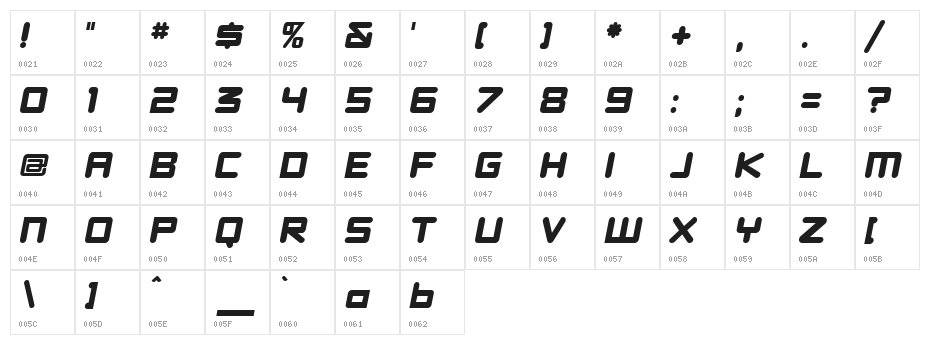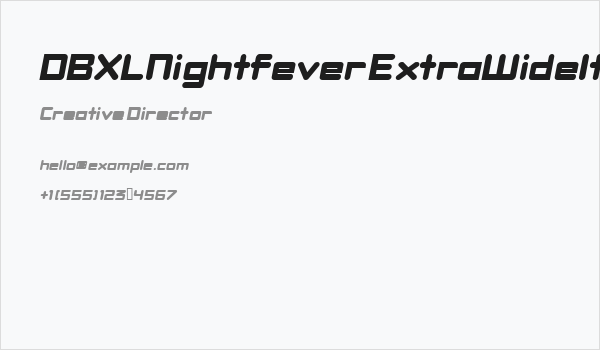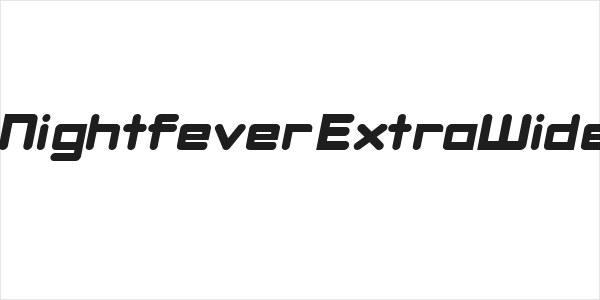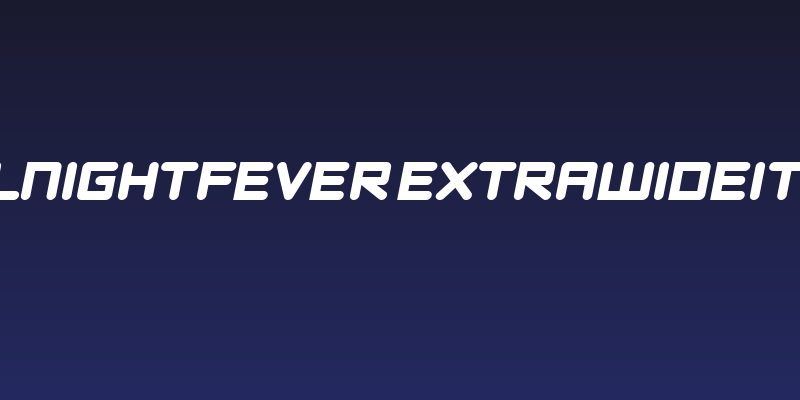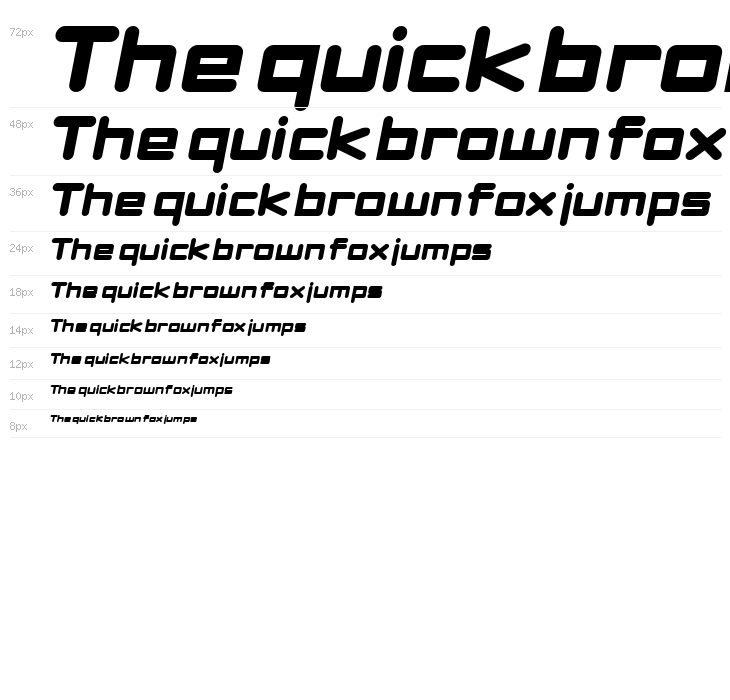
DBXLNightfever ExtraWideItalic Font
DBXLNightfever ExtraWideItalic Description
This font features a bold and dynamic style with a distinctly modern flair. The characters are extra wide and italicized, giving them a sense of movement and energy. The rounded edges and smooth curves provide a futuristic and sleek appearance, making it ideal for projects that require a contemporary and eye-catching look. The uppercase and lowercase letters maintain a consistent design, ensuring readability while adding a unique touch. The numerals and special characters are equally bold and stylized, complementing the overall aesthetic. This font's design is perfect for making a strong visual impact.